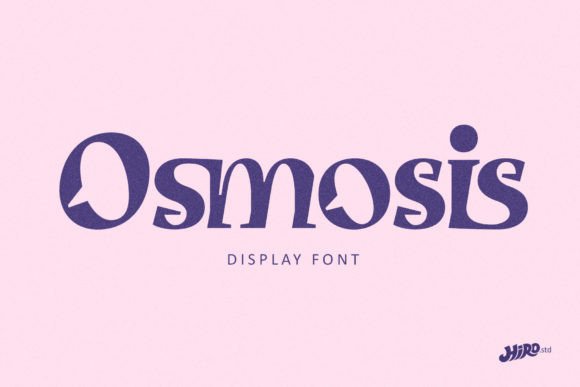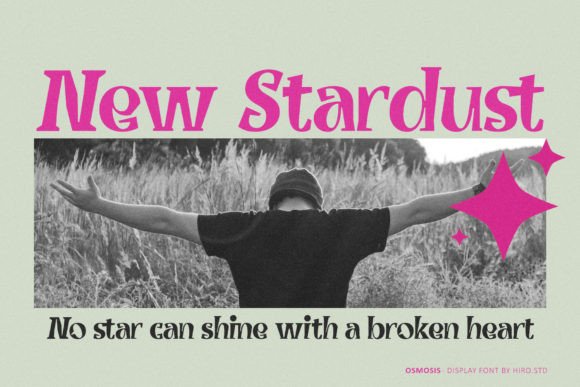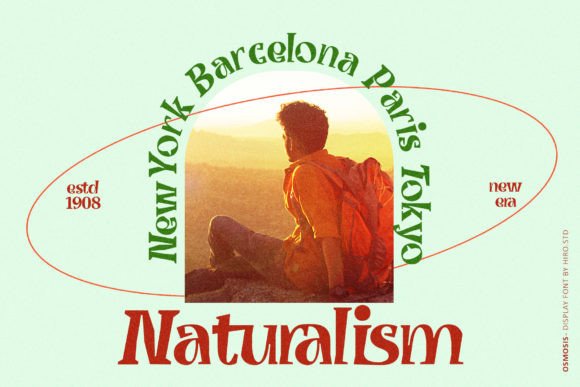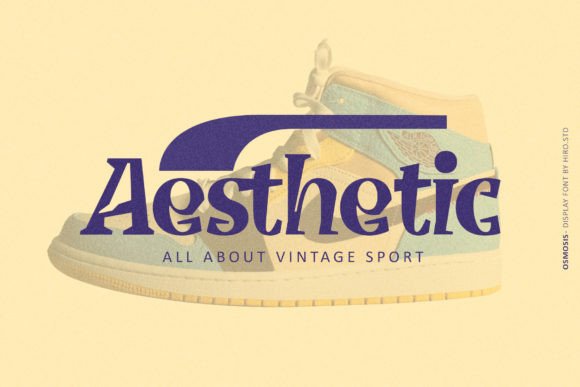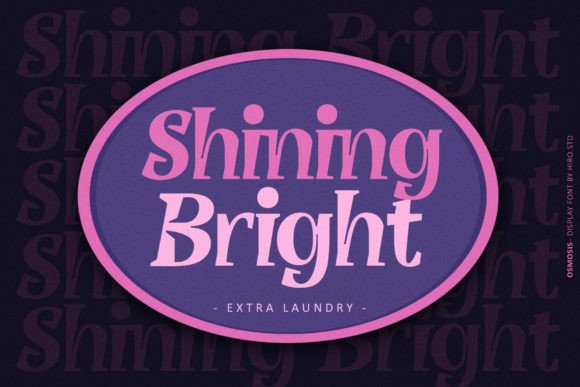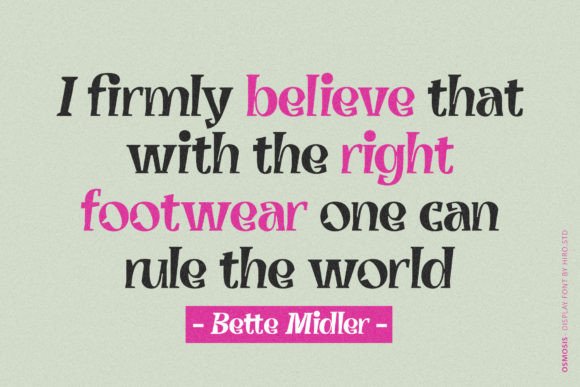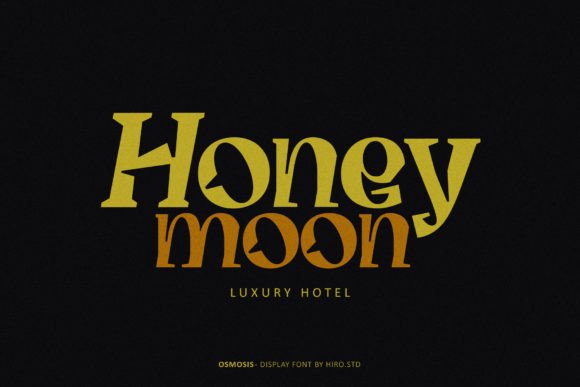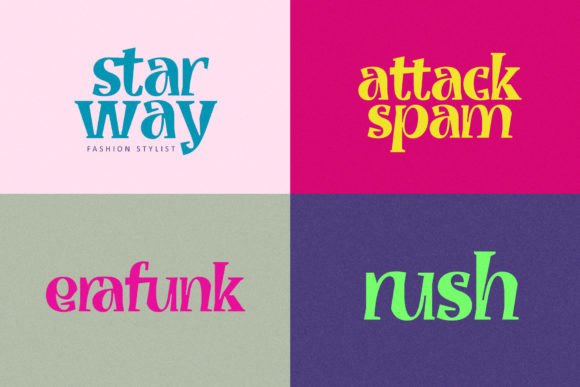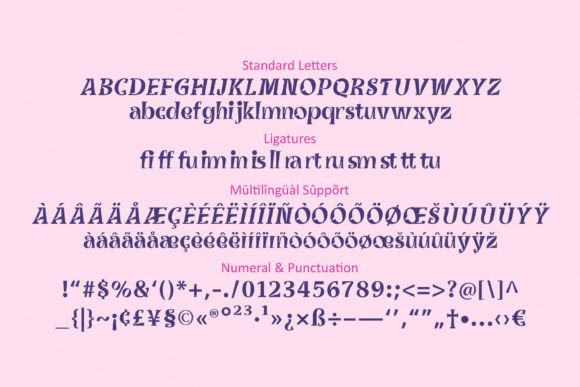
Osmosis
Osmosis: A Modern and Stylish Slab Serif Font
Osmosis is a slab serif font that captures modern life through its stylish, modern, retro, and vintage design elements. This easy-to-use typeface brings versatility to various creative applications.
Key Features of Osmosis
• Modern Design: Reflects contemporary lifestyle.
• Stylish Character: Brings sophisticated appeal to designs.
• Retro Elements: Incorporates vintage charm.
• User-Friendly: Offers easy application in projects.
Best Uses for Osmosis
Thanks to its versatile characteristics, Osmosis works especially well for:
When using Osmosis in your designs, keep these tips in mind:
• Try it for headlines or display text to showcase its modern style.
• Use different sizes to highlight its retro features.
• Let its vintage character enhance creative projects.
• Take advantage of its easy-to-use nature for quick implementation.
To sum up, Osmosis is an excellent choice for designers seeking a modern and stylish slab serif font. Its blend of contemporary and vintage elements makes it perfect for various creative projects. Whether you’re creating modern designs or developing retro-inspired layouts, Osmosis offers the perfect mix of style and usability.
Furthermore, Osmosis’s distinctive design allows it to shine in contexts where both modernity and vintage appeal are key. For instance, from contemporary layouts to creative projects, this font can elevate your work with its unique style. Also, its easy-to-use nature makes it particularly accessible for designers of all skill levels.
In conclusion, Osmosis truly captures the essence of modern life in slab serif typography. Its versatility across different applications shows how well it can serve various creative needs. Therefore, for those wanting to add a touch of stylish modernity with retro charm to their work, Osmosis can enhance any design with its distinctive style. Ultimately, it’s perfect for designers aiming to make a contemporary impact while maintaining vintage appeal.